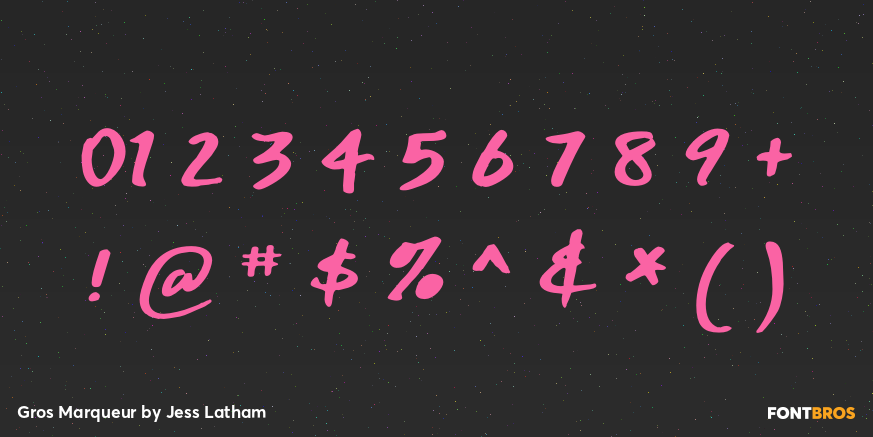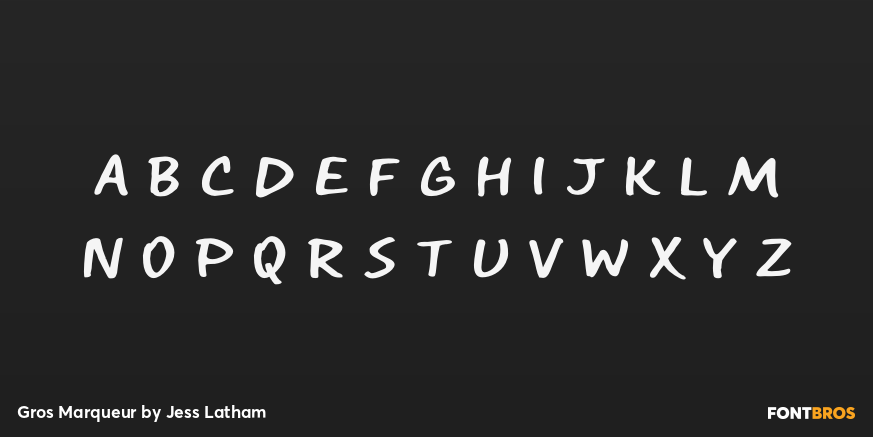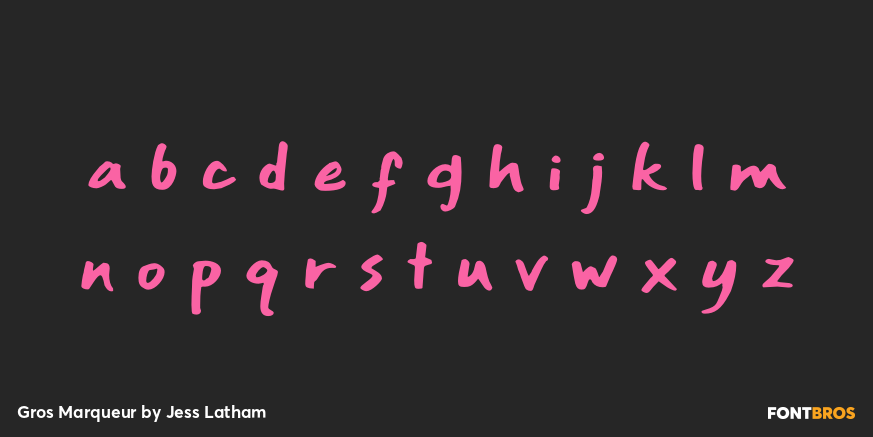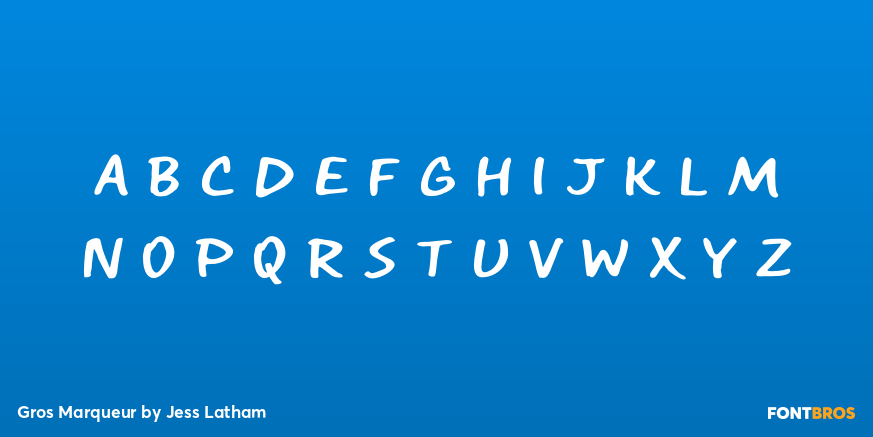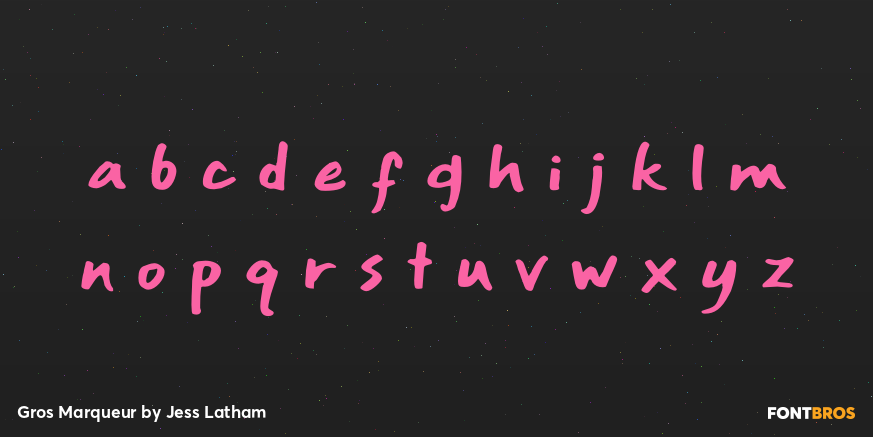
Gros Marqueur
Font Family by Jess Latham
Gros Marqueur means fat marker in french. This is my own handwriting done with a large chisel edged marker. I like how the chisel edged marker added an interesting contrast to the strokes. This is one handwriting font that no collection should be without!